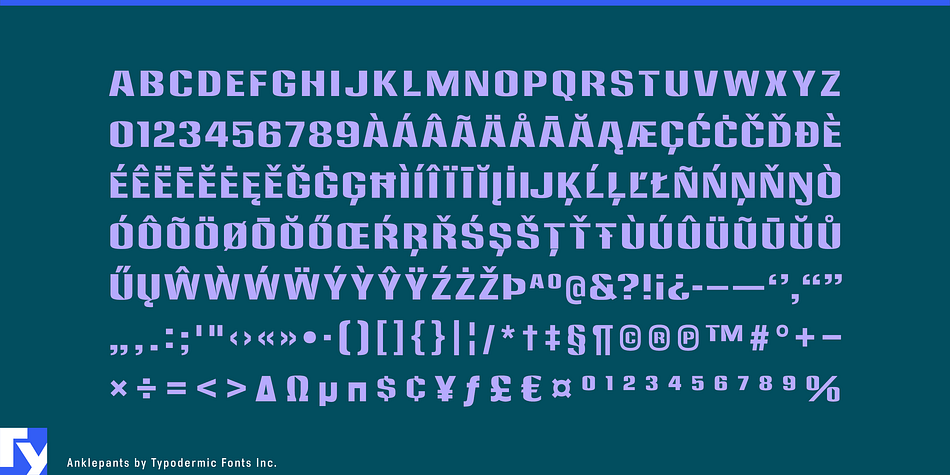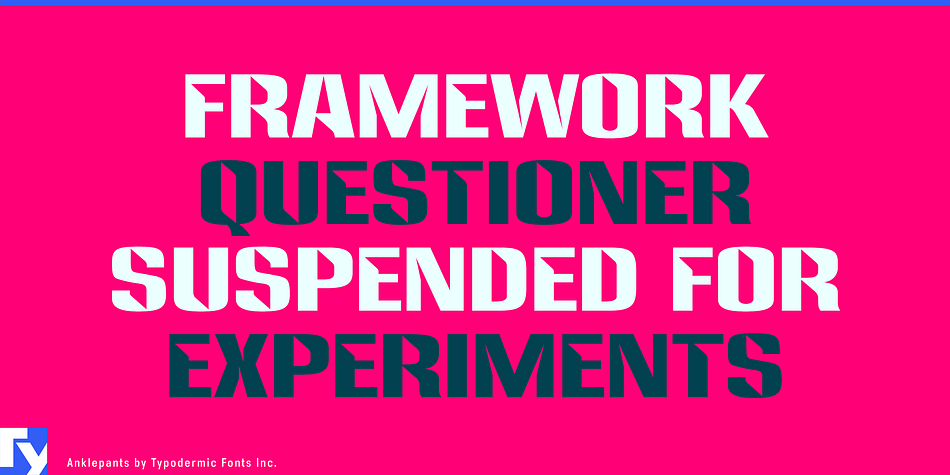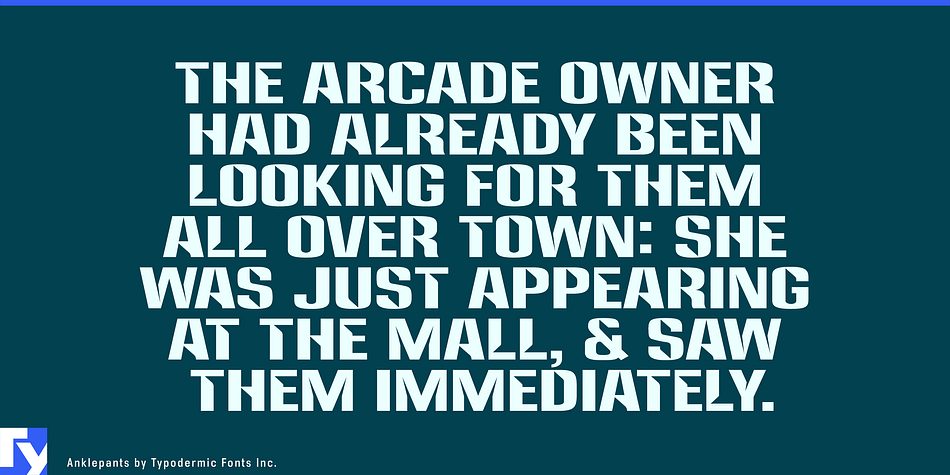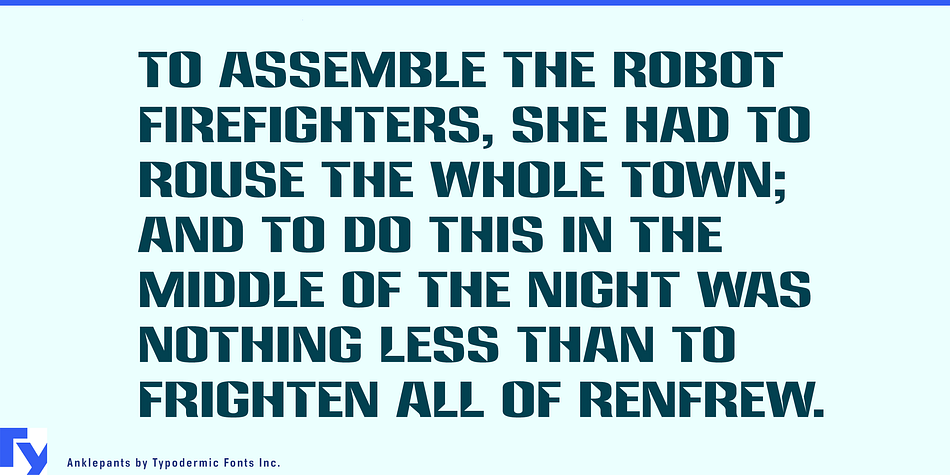
Anklepants is a display and display sans font published by Typodermic Fonts Inc.
Anklepants is a tribute to the display font once used by Westinghouse-owned CBS radio stations.